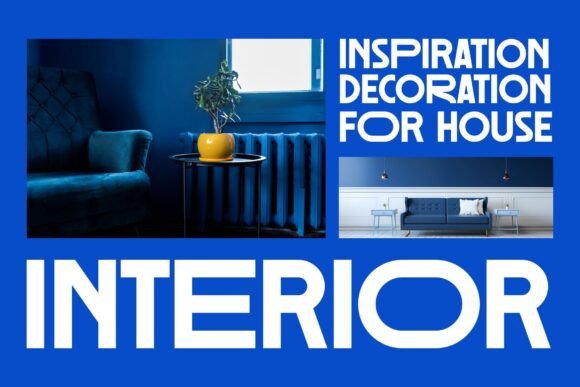
Solena Font
Solena is a clean and geometric sans serif font with a unique twist. Designed for logos and modern branding, it features bold shapes and fresh styling that make it stand out in minimalist layouts. Ideal for tech, creative agencies, and forward-thinking designs.